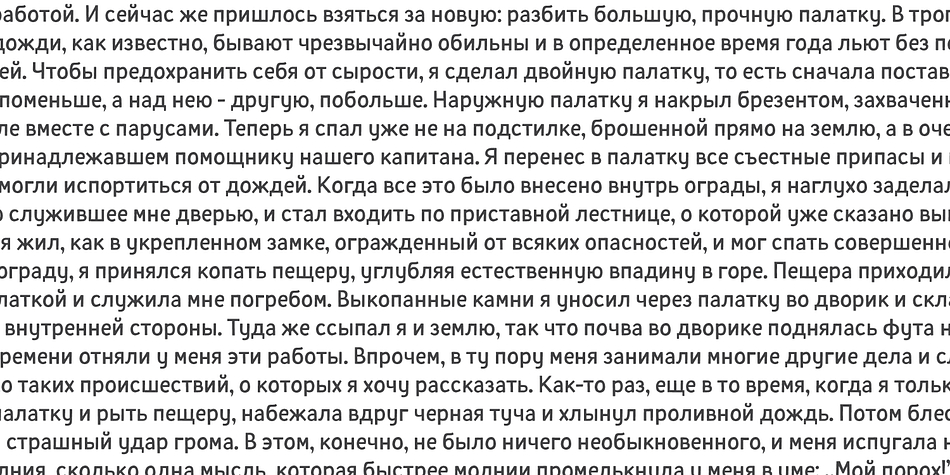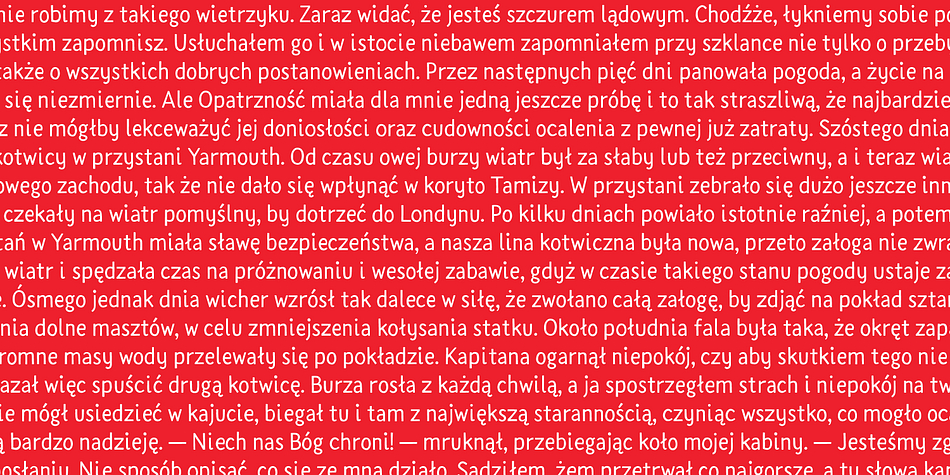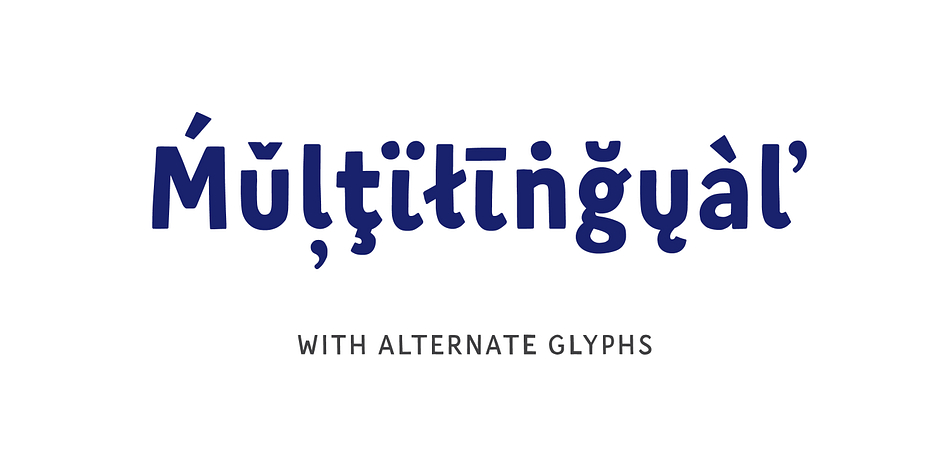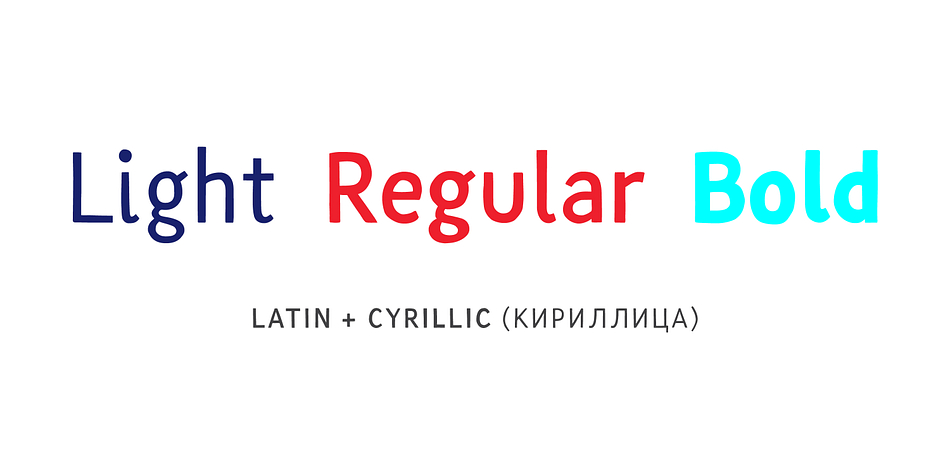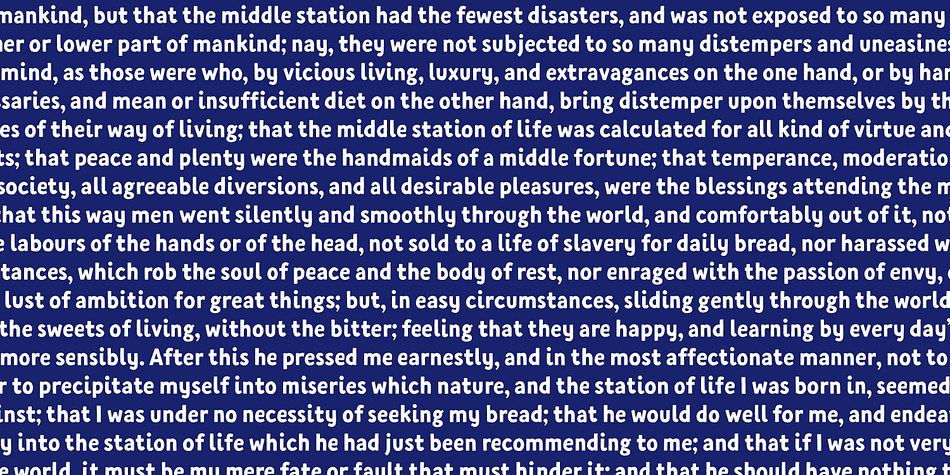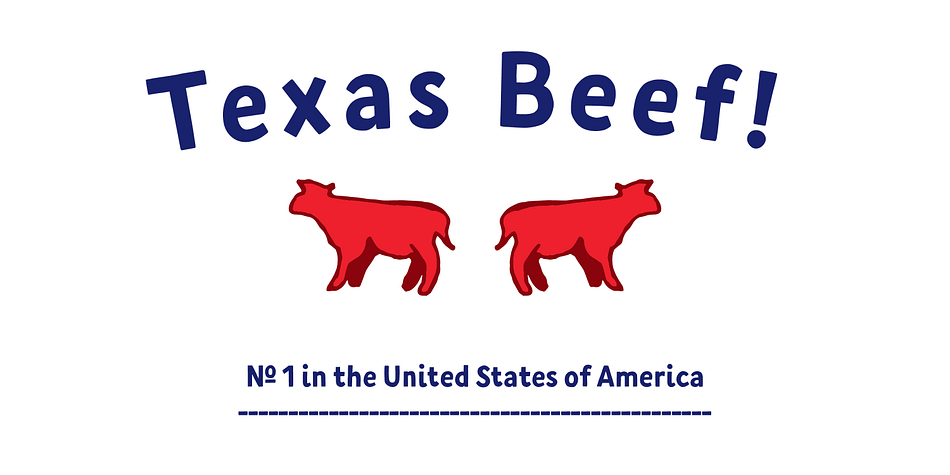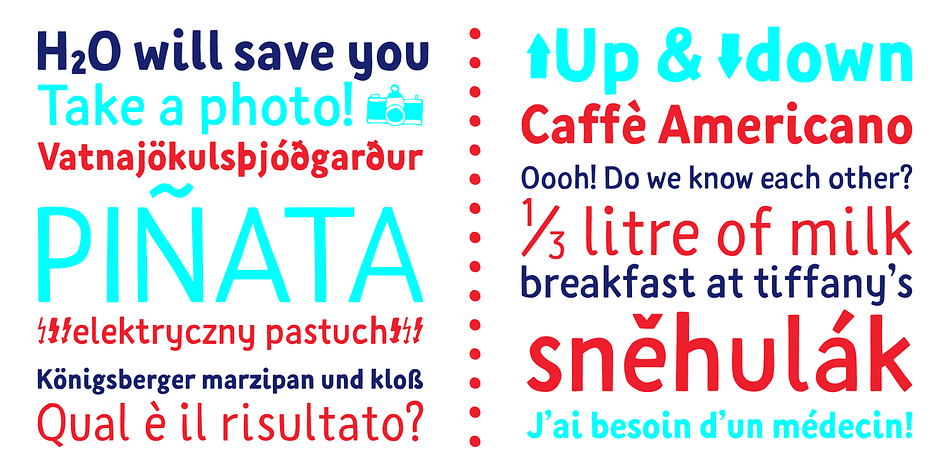
Fela is a hand drawn font family. This typeface has three styles and was published by Maciej Włoczewski.
The Fela family was designed for books and posters for young children to gain high readability and nice feeling. Every glyph was hand drawn and shaped for better result.
This typeface consists of different alternate glyphs with special automatic script, many special characters for different languages and pictograms and Cyrillic script.